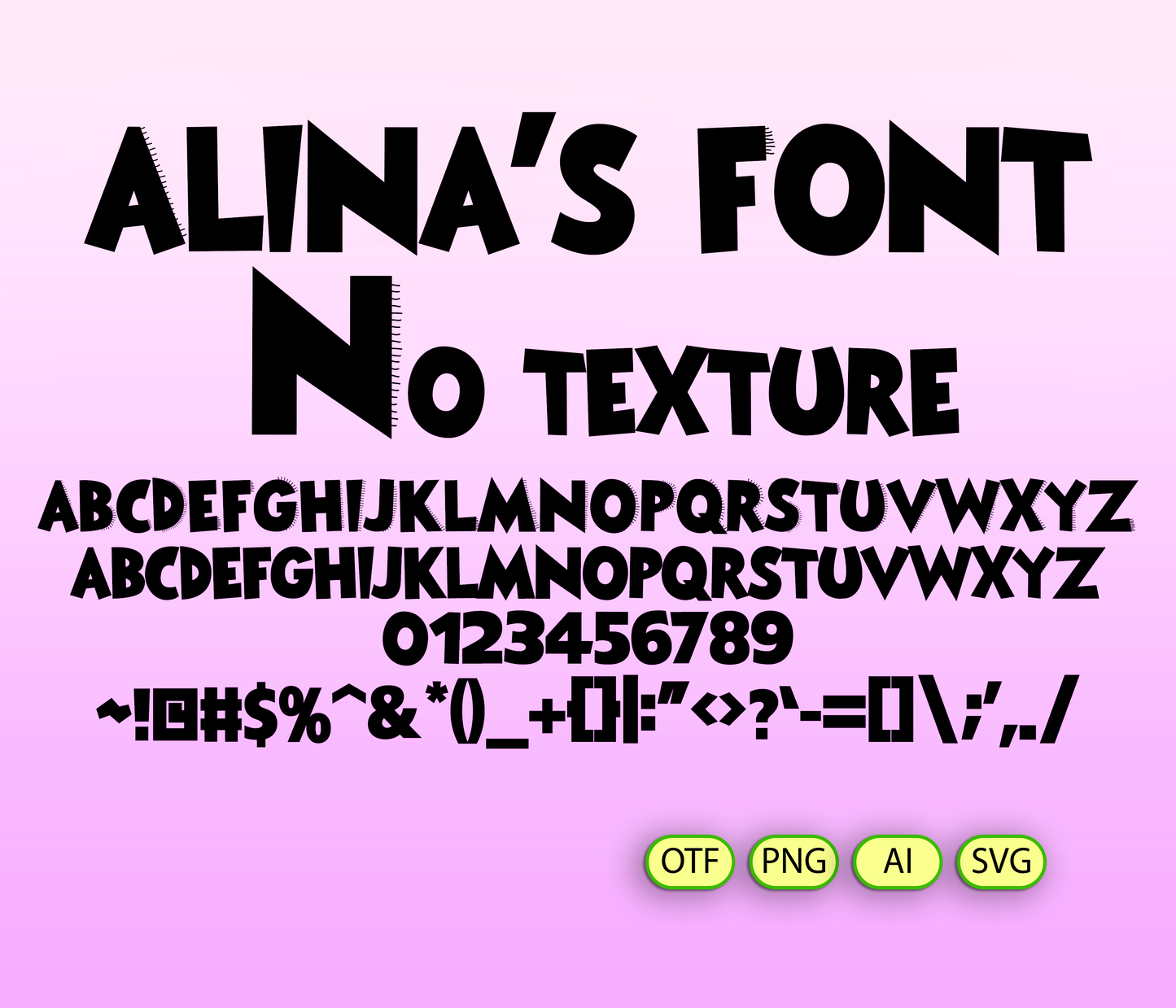
Urban Family Tales Font
Urban Family Tales Font: Vibrant and Lively
Bring the colorful and spirited vibe of a close-knit urban family to your designs with the Urban Family Tales font, inspired by an animated series about life in a bustling city apartment. This font is perfect for capturing the familial warmth and city adventures portrayed in the show.
The Urban Family Tales font features playful, bold characters with a hint of whimsy, designed to reflect the dynamic and multicultural environment of a modern metropolis. Its friendly and inviting style makes it suitable for a wide range of creative projects.
Ideal for projects aimed at younger audiences, such as educational materials, children's event promotions, or family-oriented advertising, the Urban Family Tales font infuses your work with the energy and charm of a beloved series that celebrates diversity and everyday adventures in city life.